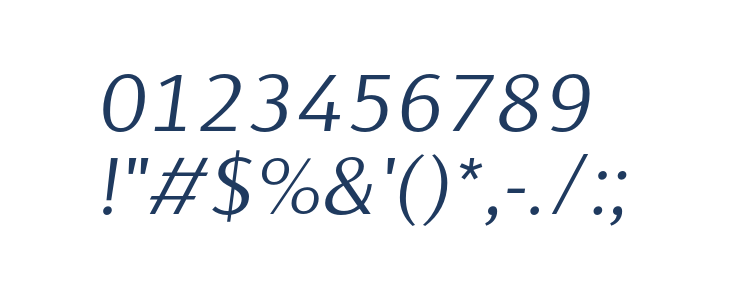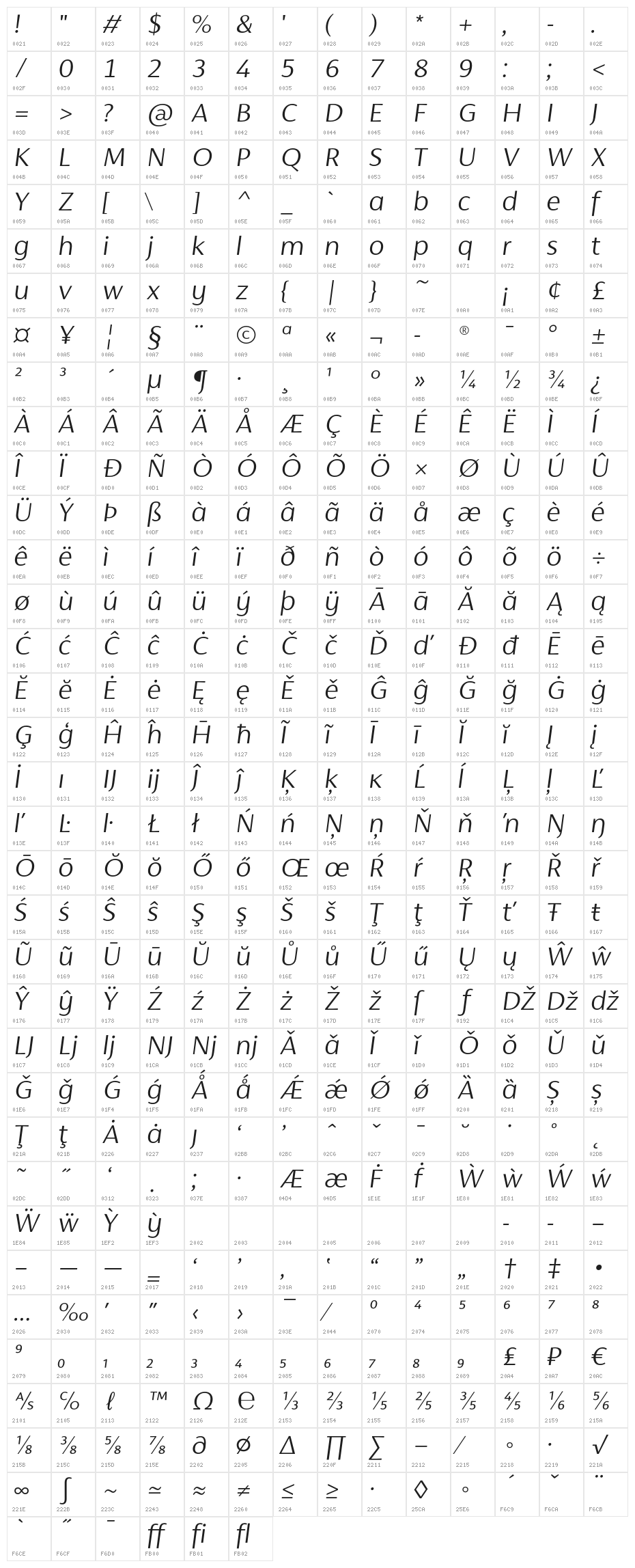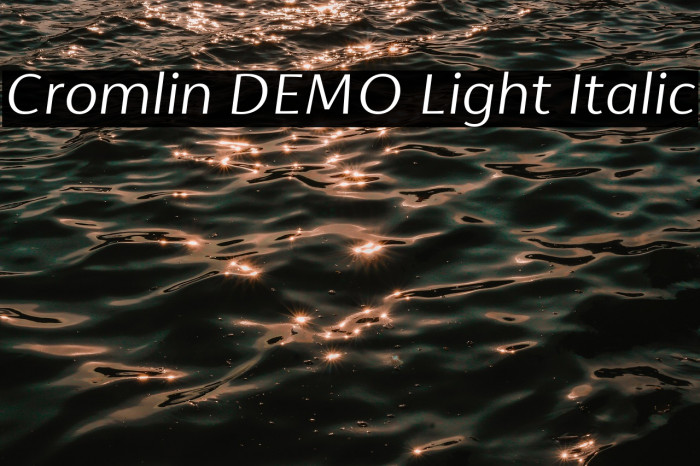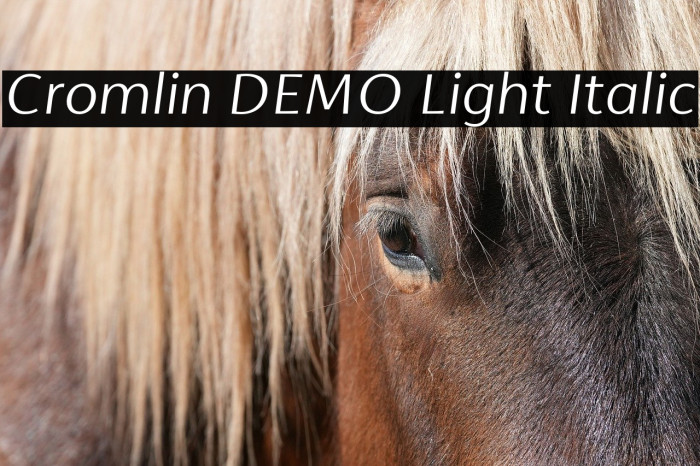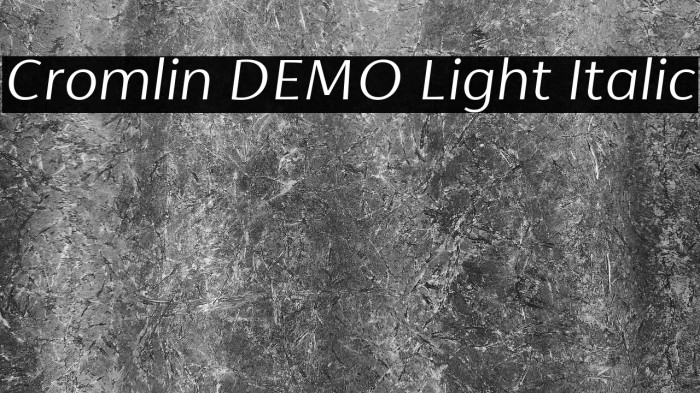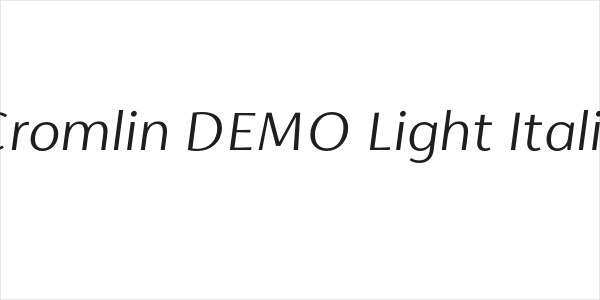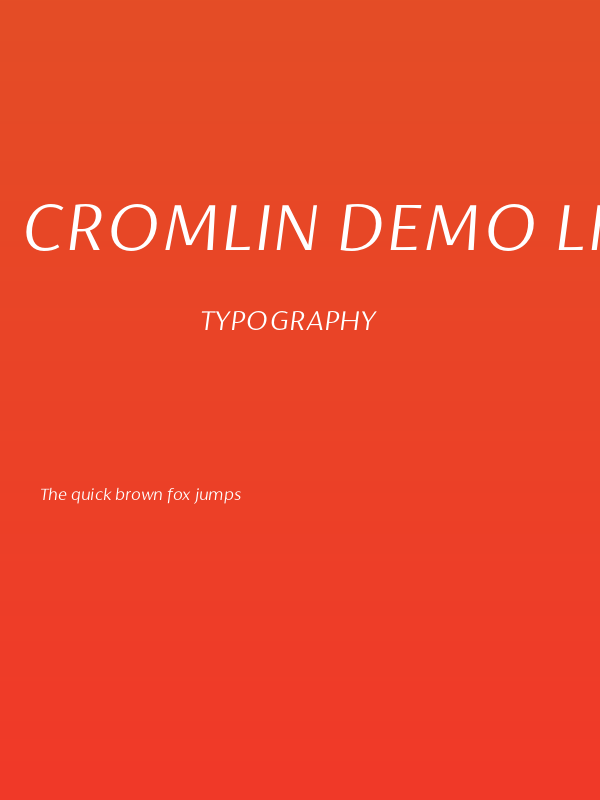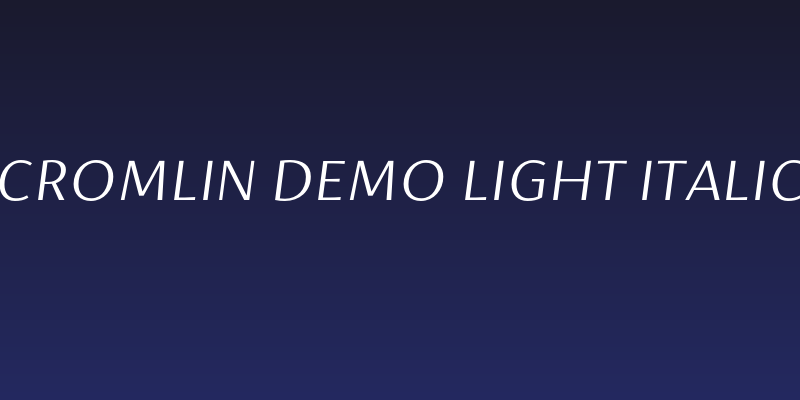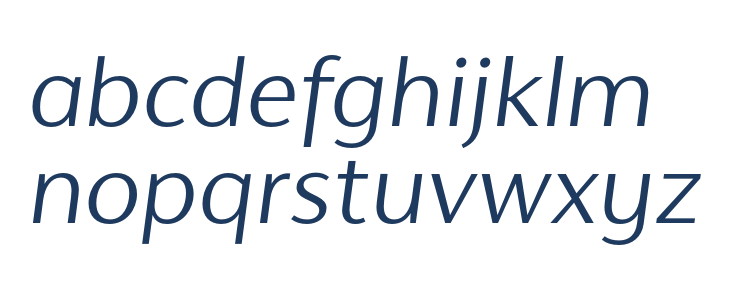
Cromlin DEMO Light Italic Font
Cromlin DEMO Light Italic Description
This font features a sleek and modern design with a light weight and italic style. The characters are slightly slanted, giving a sense of motion and elegance. The sans-serif design ensures clarity and readability, making it suitable for both digital and print media. The clean lines and minimalistic approach contribute to its contemporary appeal. The numerals and special characters are consistent with the overall style, maintaining a uniform look across all glyphs.